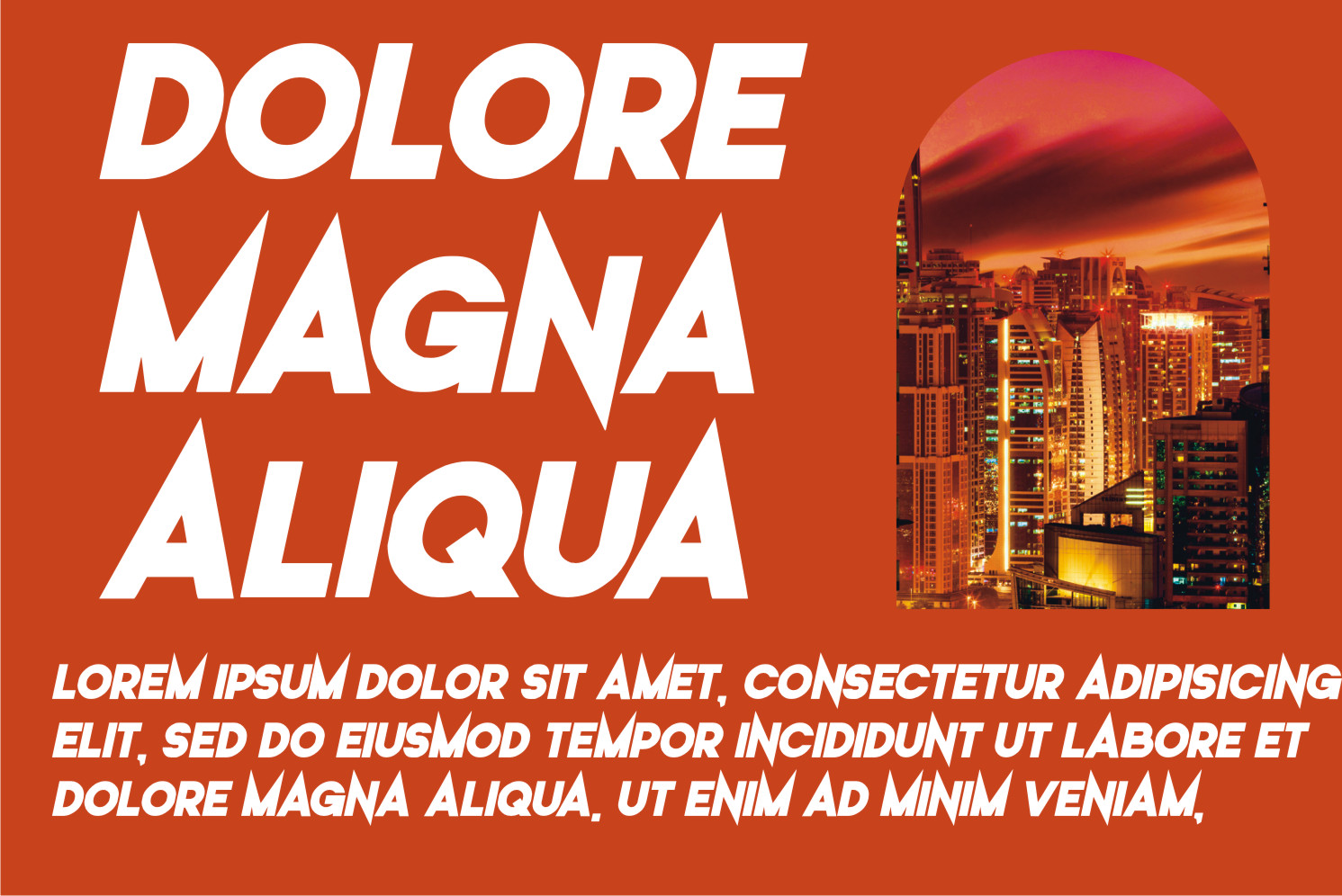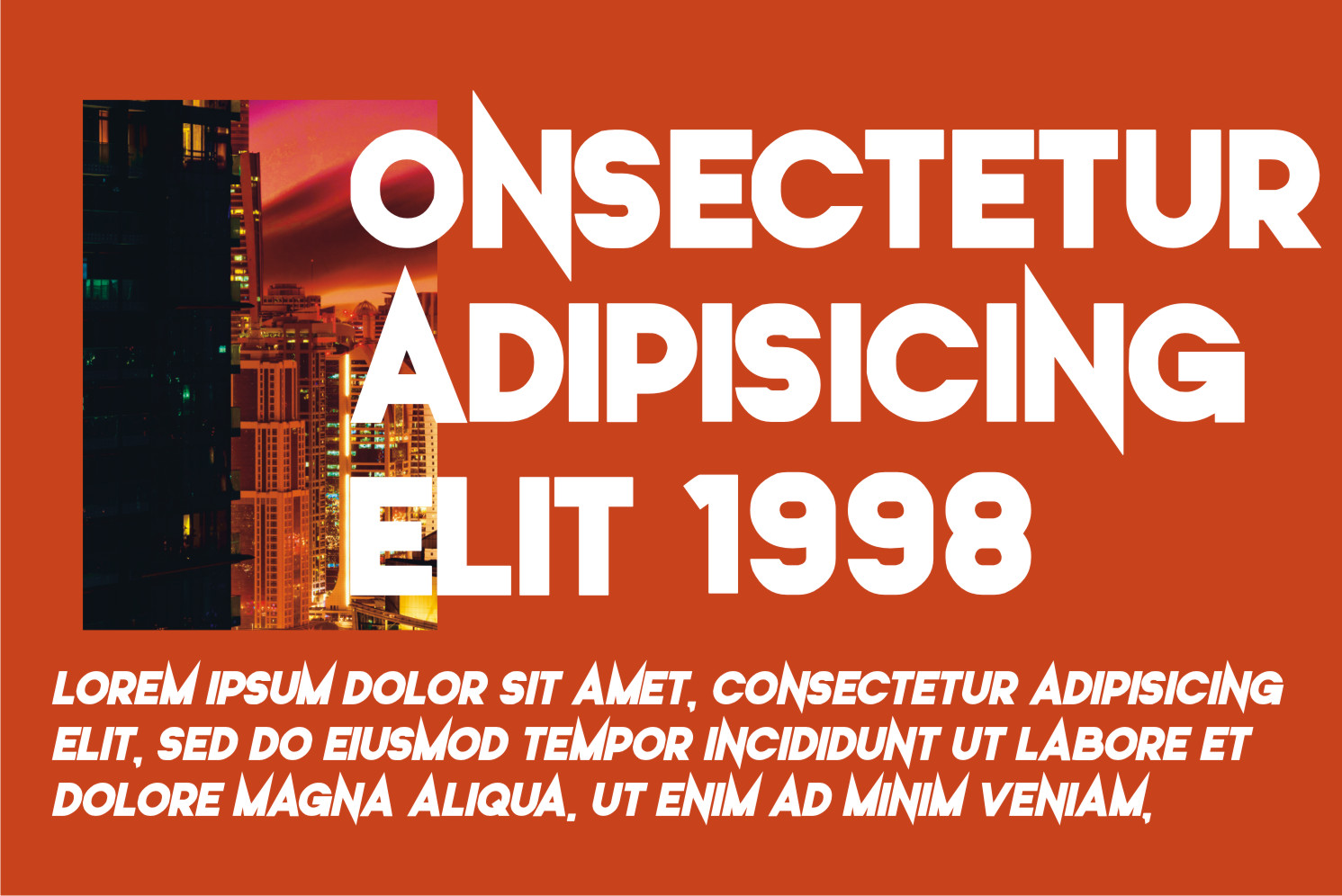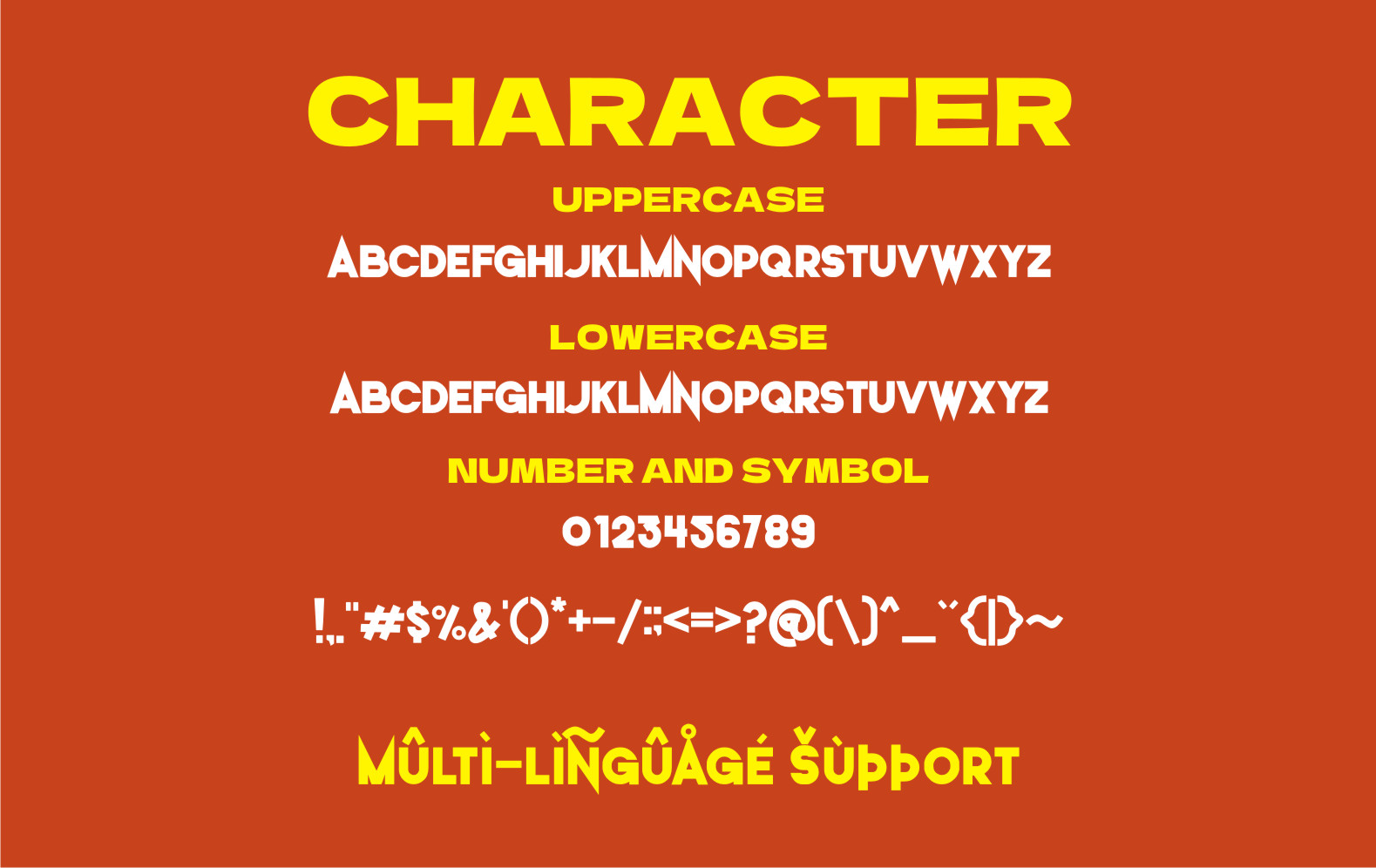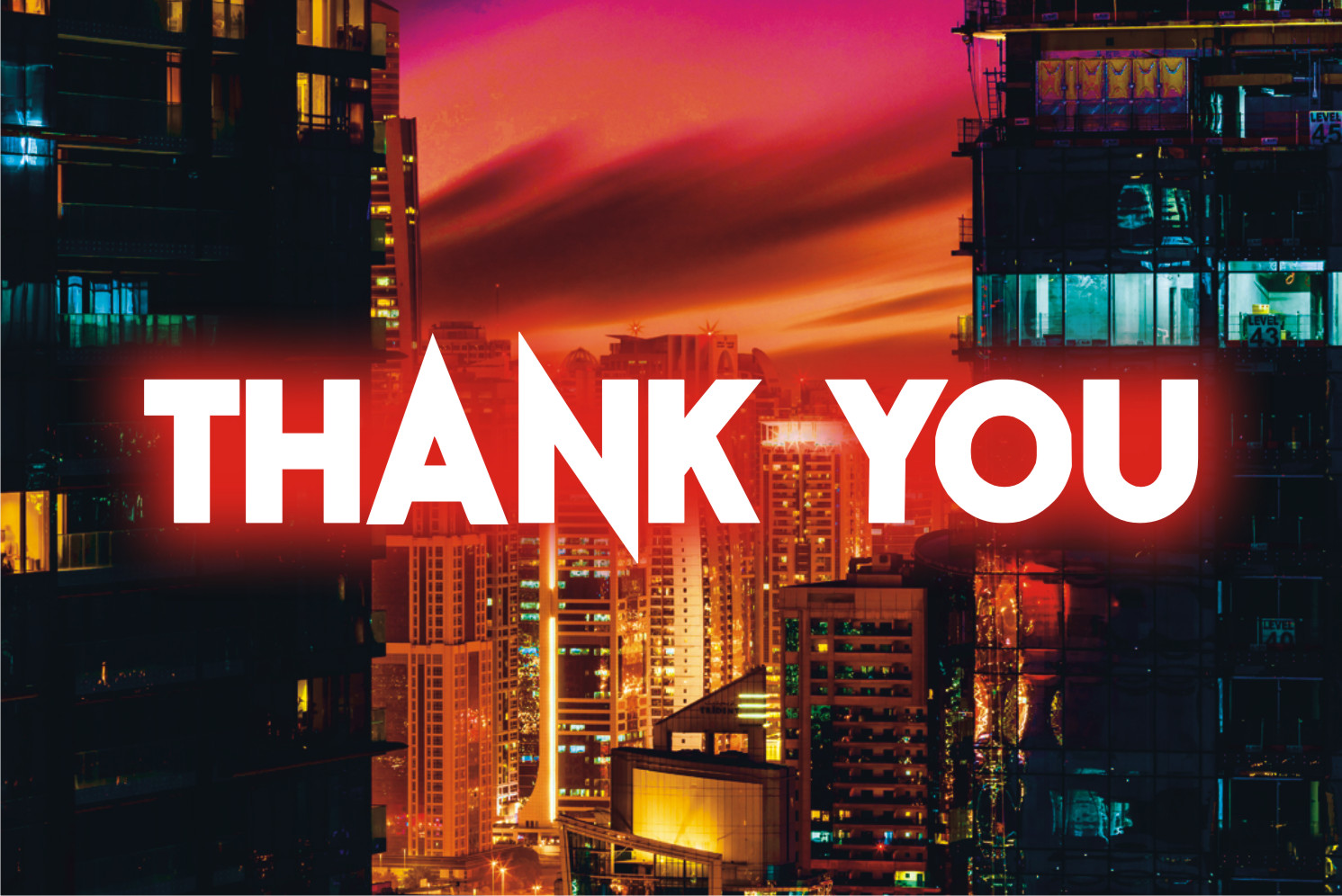
Warrior Display Font
It’s a cool and techno-looking display font. This font is ideal for writing web designs, business cards, or anything else that requires a futuristic, unique touch.